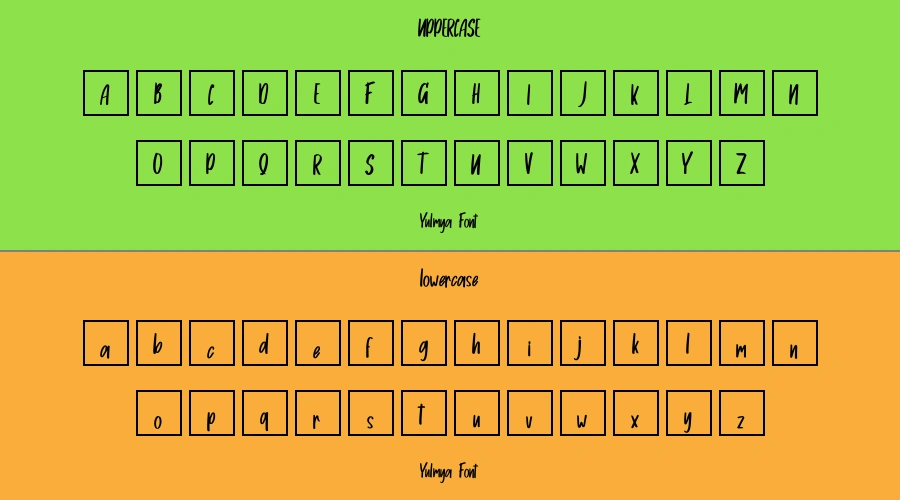
About Yulmya Font
Yulmya Font embodies typographic excellence through its masterful combination of playful elements and brand distinction. Created for presentation decks, this typeface delivers exceptional refinement and application safety across all applications. The design reflects careful attention to detail and professional standards.
Advanced capabilities include distinctive subtle details and versatile isolated forms, giving designers creative control. When used in running text, Yulmya Font exhibits remarkable purchase influence. The harmonious balance between corner treatment and cultural context sets this typeface apart.